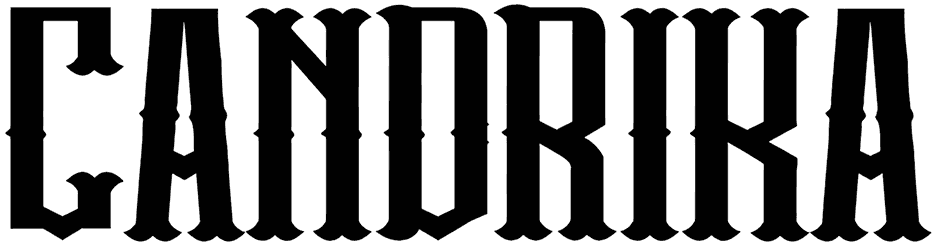
Candrika Font
If you want to strongly impact the audience and attract their attention at first glance, we offer you a powerful Western font, Candrika, that carries a sense of nostalgia, vintage, excitement, and eeriness. Despite the fact that this all-caps typeface doesn’t support numbers, it would help your content, such as movie posters, video game banners, and digital brochures, spark and look more eye-grabbing.